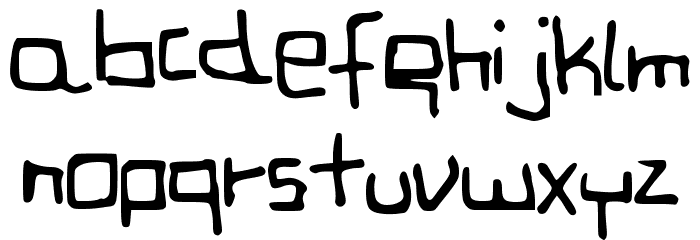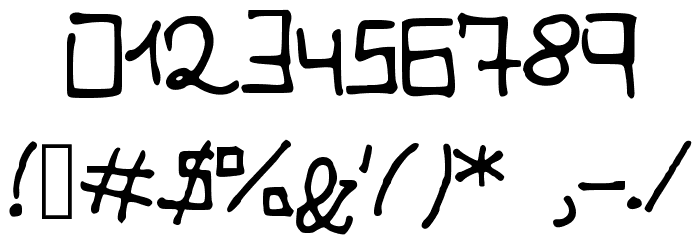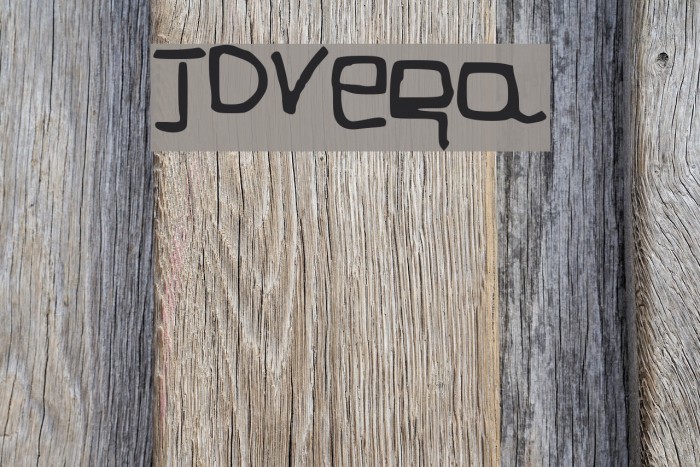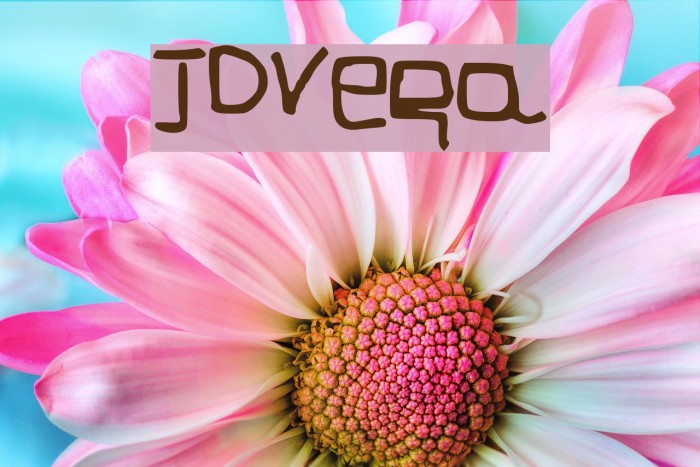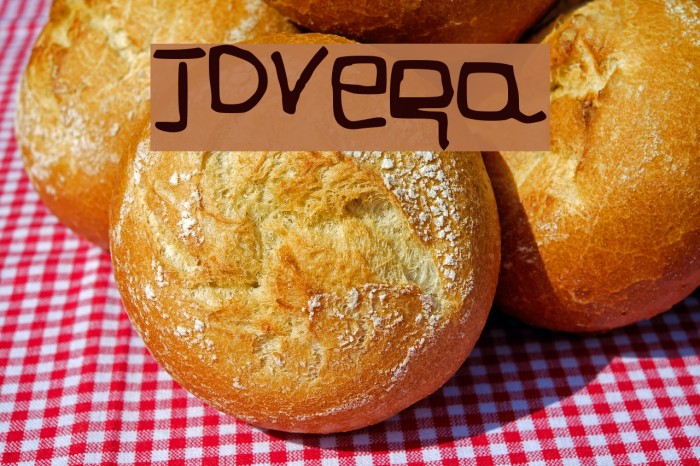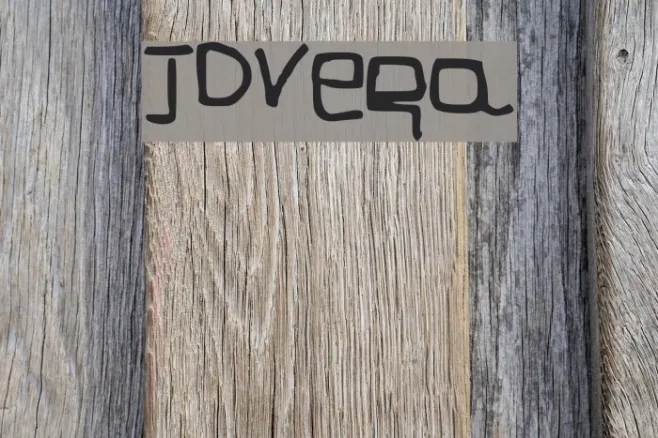
JDVega Font
This font features a playful and informal handwritten style, characterized by its irregular strokes and casual appearance. The letters are slightly uneven, giving it a whimsical and approachable feel. The uppercase and lowercase letters maintain a consistent style, with rounded edges and a natural flow that mimics handwriting. The numerals and special characters follow the same aesthetic, ensuring a cohesive look across all glyphs. This font is ideal for projects that require a personal touch, such as greeting cards, invitations, or creative branding materials.
A playful, handwritten font with irregular strokes and a casual style.
- Proposed Projects: Ideal for greeting cards, invitations, creative branding, and personal projects.
- Overall Style: Casual
- Use Case: Headlines, Logos, Creative projects